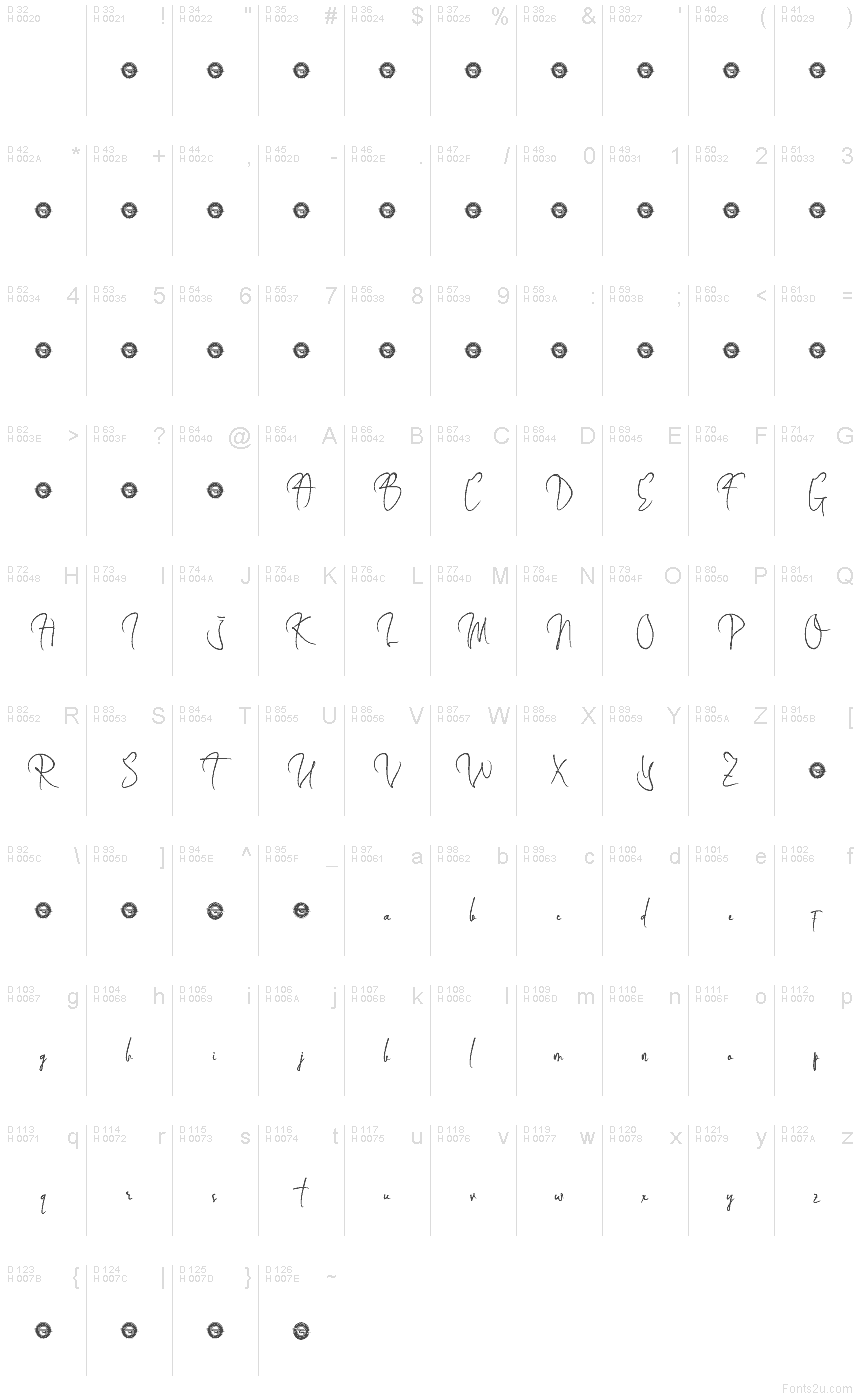
Fly Together Demo
Fly Together font by Calligraphy Fonts is a free handwritten script typeface that feels like a note dashed off with a fine ink pen. Tall, sweeping capitals drift upward, while the slimmer lowercase letters trail behind with an easy, romantic looseness. The rhythm is airy but not messy, giving you that candid, personal touch without sacrificing legibility—like handwriting carefully done for a special occasion.
Using Fly Together, your designs instantly pick up a soft, intimate mood that shines on wedding invitations, save-the-dates, bridal shower cards, brand signatures, product packaging, and social media quotes. This free font works beautifully as a hero script paired with a clean sans serif in small caps underneath. Set it larger so the long, flowing strokes have room to breathe, and let its graceful movement carry the message.